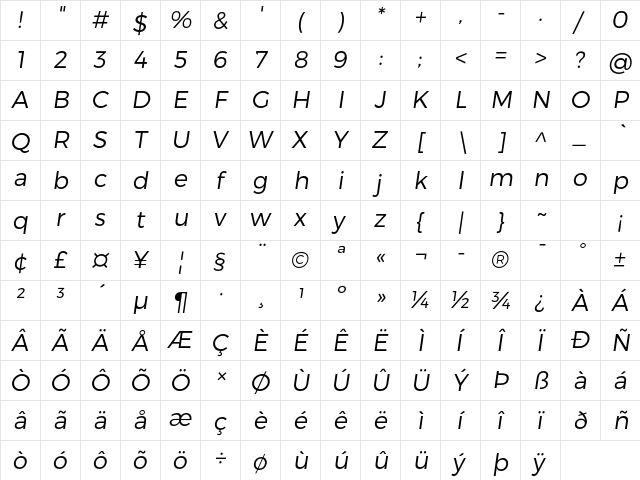
Trueno Light Italic
| Foundry | Julieta Ulanovsky |
| Designer | Julieta Ulanovsky |
Design Context for Trueno Typeface
Trueno offers clean, dependable letterforms without strong stylistic allegiance, making it a practical choice for designers who need flexibility. The slanted form adds forward momentum and visual energy. Its slender proportions lend an understated elegance to any composition.